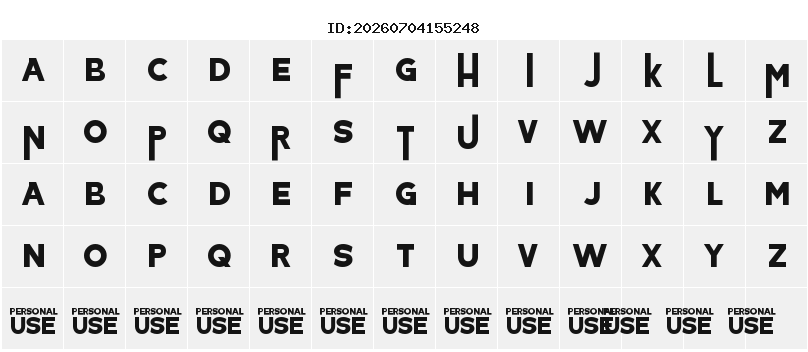
Dulkanyca Preview
• Font Name: Dulkanyca
• Full Font Name: Dulkanyca Bold
• Designer: Luis Jaramillo
• Manufacturer: LJ Design Studios
About Dulkanyca.ttf
Dulkanyca.ttf is a modern, elegant sans-serif font designed for ultimate readability and visual harmony. Perfect for branding, headlines, web design, and print materials.